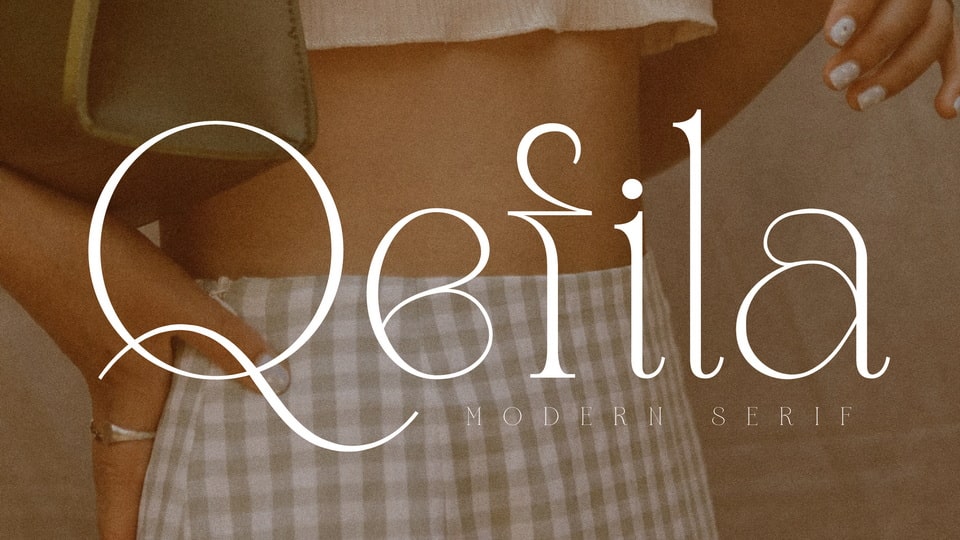
Download Qefila font, a delicate and airy typeface that has own unique style and modern look. Qefila font is perfect for an elegant and luxury logo, book or movie title design, fashion brand, magazine, clothes, lettering, quotes, and so much more.